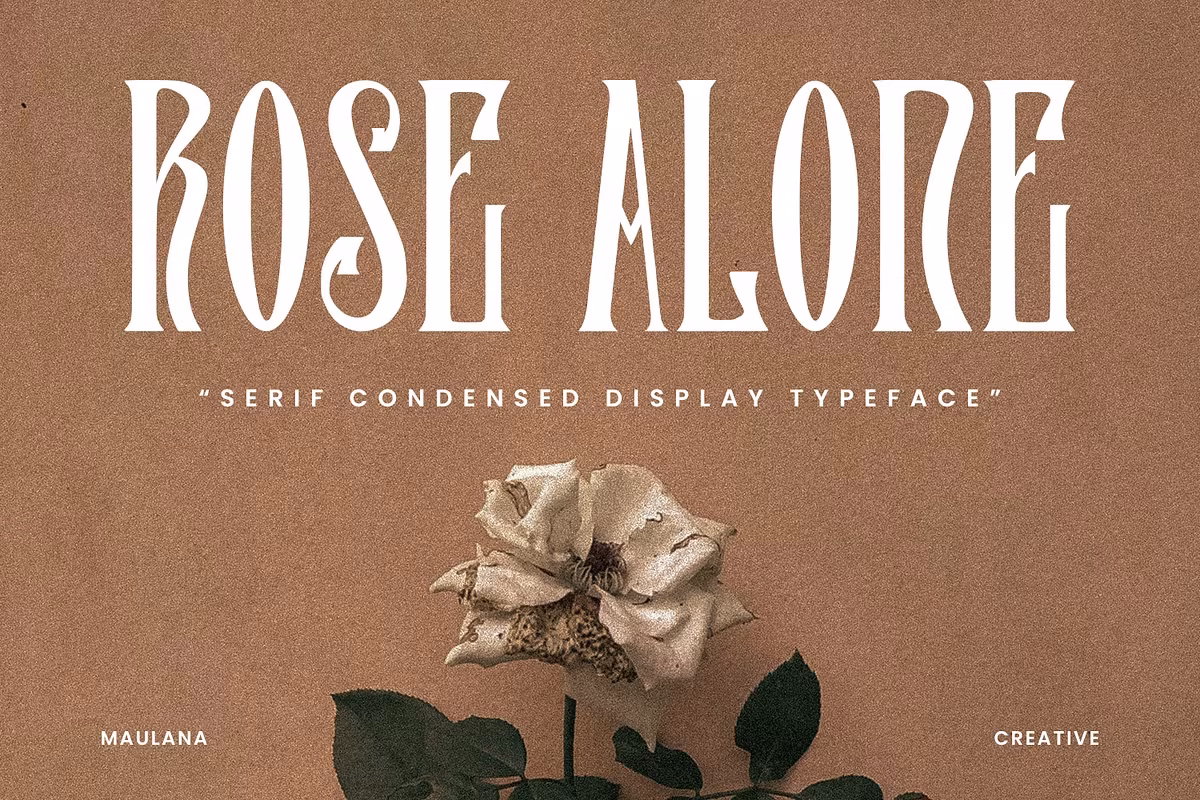
Rose Alone Serif Condensed Display Font Free Download is a sophisticated and modern condensed serif typeface designed to make a bold statement. With its refined serifs and sleek, condensed form, this font is ideal for creating high-impact headlines, posters, logos, branding, and any design project that requires a stylish and distinctive look.
The condensed design allows for tighter spacing, making it perfect for display use while maintaining legibility. Its elegant, sharp lines give it a professional and polished appearance, making it a great choice for luxury branding, editorial projects, and creative advertising.